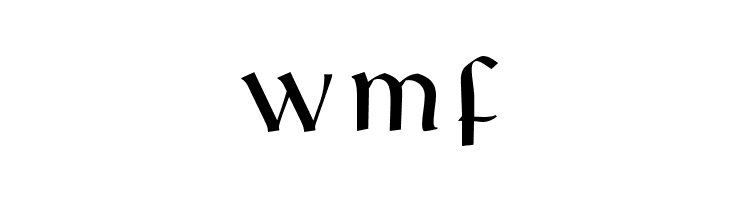
( Fonts by Christine Mauerkirchner and Rainer Grunert - PrimaFont )
A calligraphic font with elegant, flowing characters and a dynamic style.
( Fonts by Peter Rempel - www.prfonts.com )
A decorative, medieval-style font with ornate and historical elements.
( Fonts by Peter Rempel - www.prfonts.com )
A medieval-inspired font with sharp, angular lines and decorative serifs.
A bold, gothic-inspired italic font with sharp, angular edges and dramatic flair.
( Fonts by Steve Ferrera )
A bold, adventurous font with sharp serifs and a distressed appearance, perfect for pirate-themed projects.
( Fonts by Steve Ferrera )
An ornate, decorative font with elaborate serifs and swashes.
A shadowed blackletter font with intricate, angular designs.
A bold, ornate Blackletter font with intricate details and a historical feel.